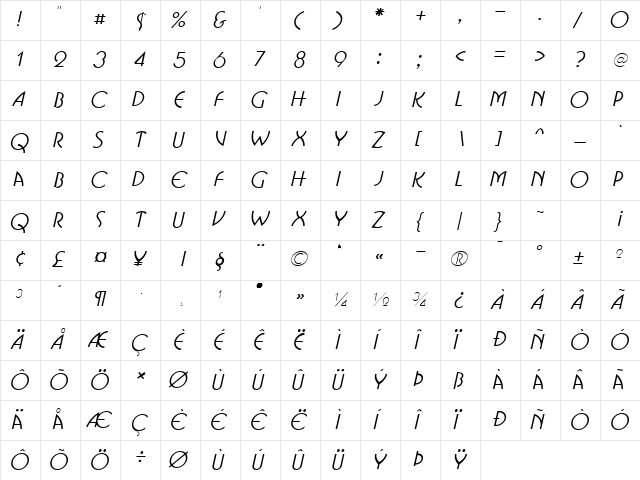
Busso Narrow Italic Font Preview
Design Context for Busso Narrow Typeface
Busso Narrow is a composed and adaptable typeface that performs quietly and consistently across a wide range of design contexts. The dynamic lean of this cut emphasises speed and emphasis in any layout. Its narrow stance lets it pack a punch even in space-constrained designs.